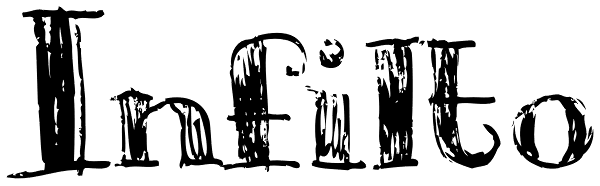
Infilto
Infilto is a scribbled font, simulating hasty written letters. Comes with loads of ligatures for both double letters/numbers and the most common letter combinations... You will need to use OpenType supporting applications to use the autoligatures.